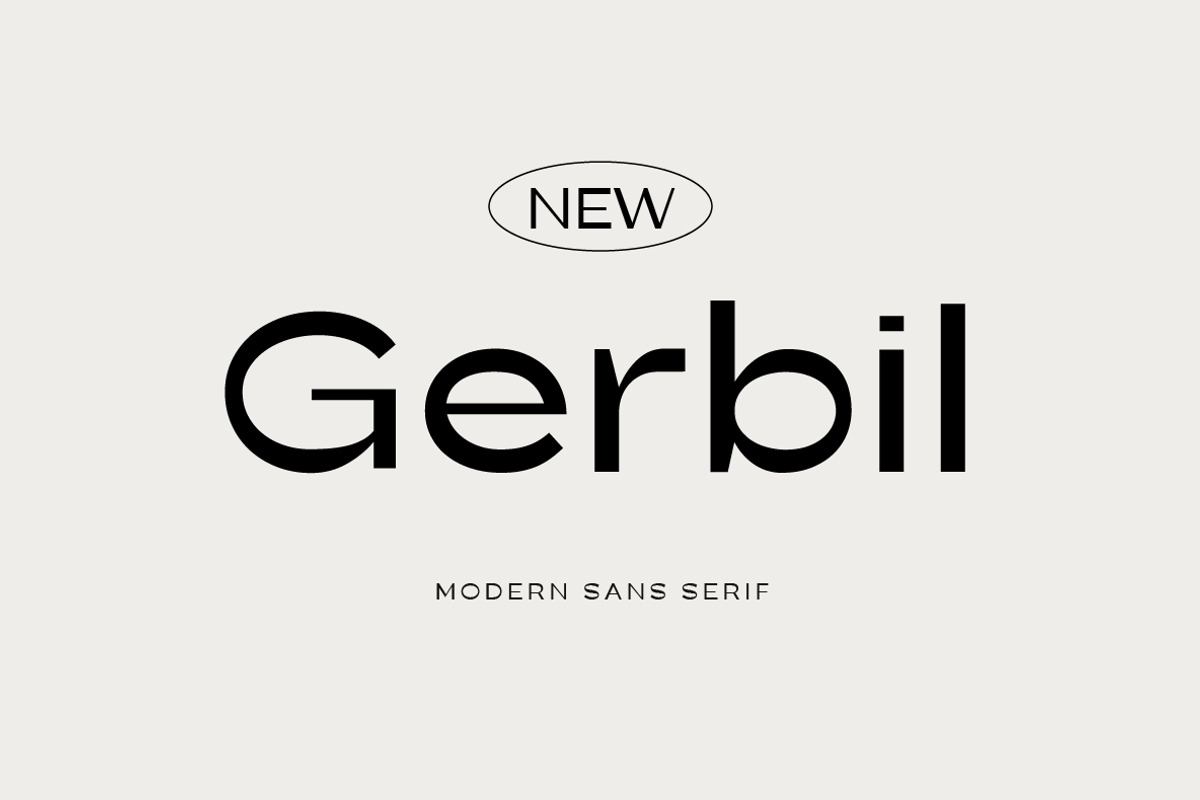
New Gerbil Modern Sans Font Free Download is a sleek, minimal, and contemporary typeface designed for clean and professional visual communication. With its smooth lines, geometric structure, and versatile weight range, this font is perfect for branding, UI/UX design, modern packaging, editorial content, and corporate identity projects. It combines clarity with sophistication, making it a reliable choice for both text and headlines.
Its modern simplicity allows it to blend seamlessly into various design contexts while still maintaining a distinctive and stylish look. Whether you're designing a logo or building a website, New Gerbil ensures your message is delivered with sharpness and precision.